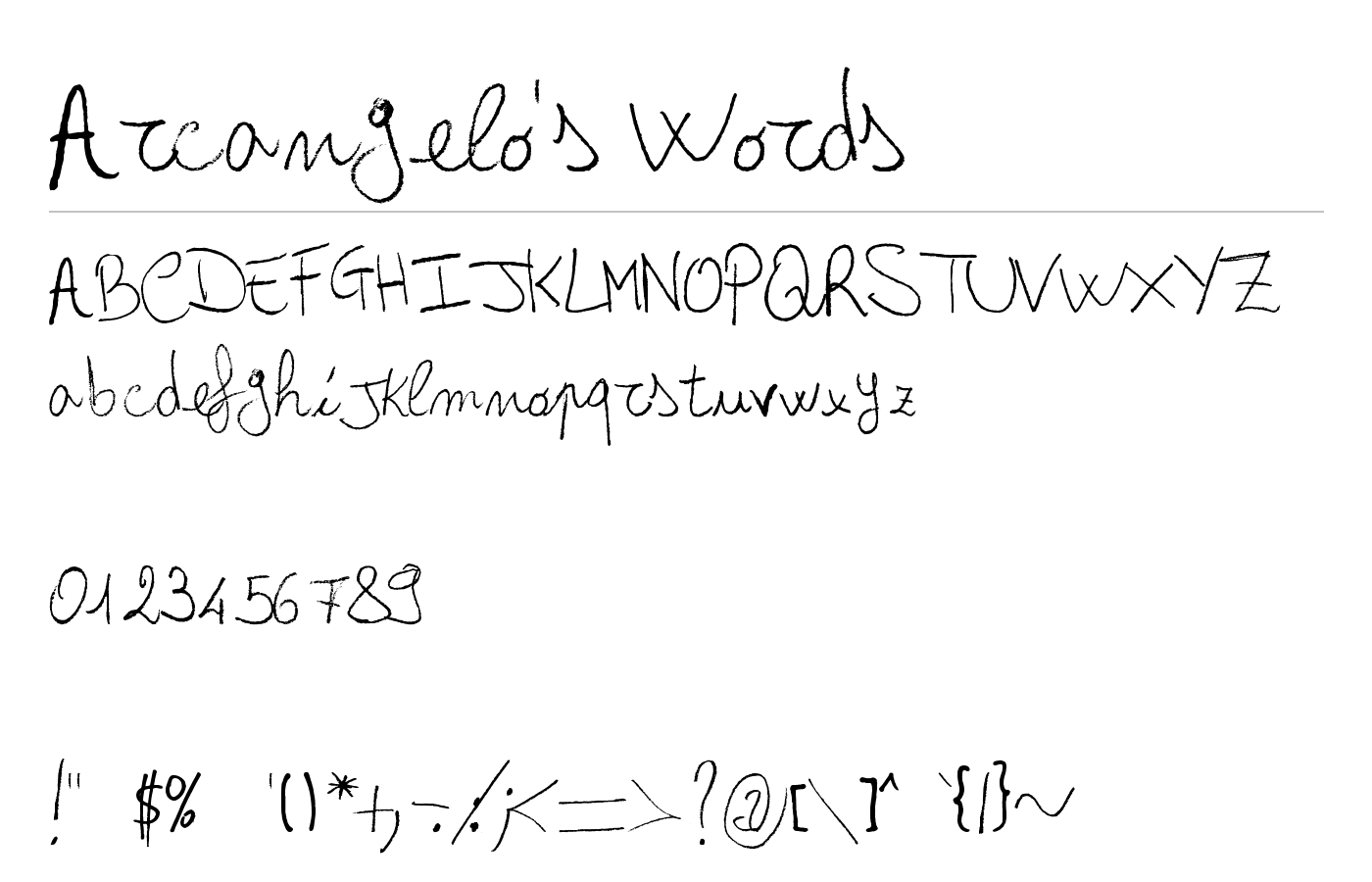
Arcangelo's Words is a playful and whimsical handwritten font that exudes a casual, personal touch with its irregular strokes and slightly uneven letterforms. Its thin, delicate lines and charming imperfections make it perfect for creative projects, informal branding, or designs seeking a quirky, artistic vibe. This font works well for invitations, greeting cards, or any context where a heartfelt, authentic feel is desired.
Arcangelo's Words Font